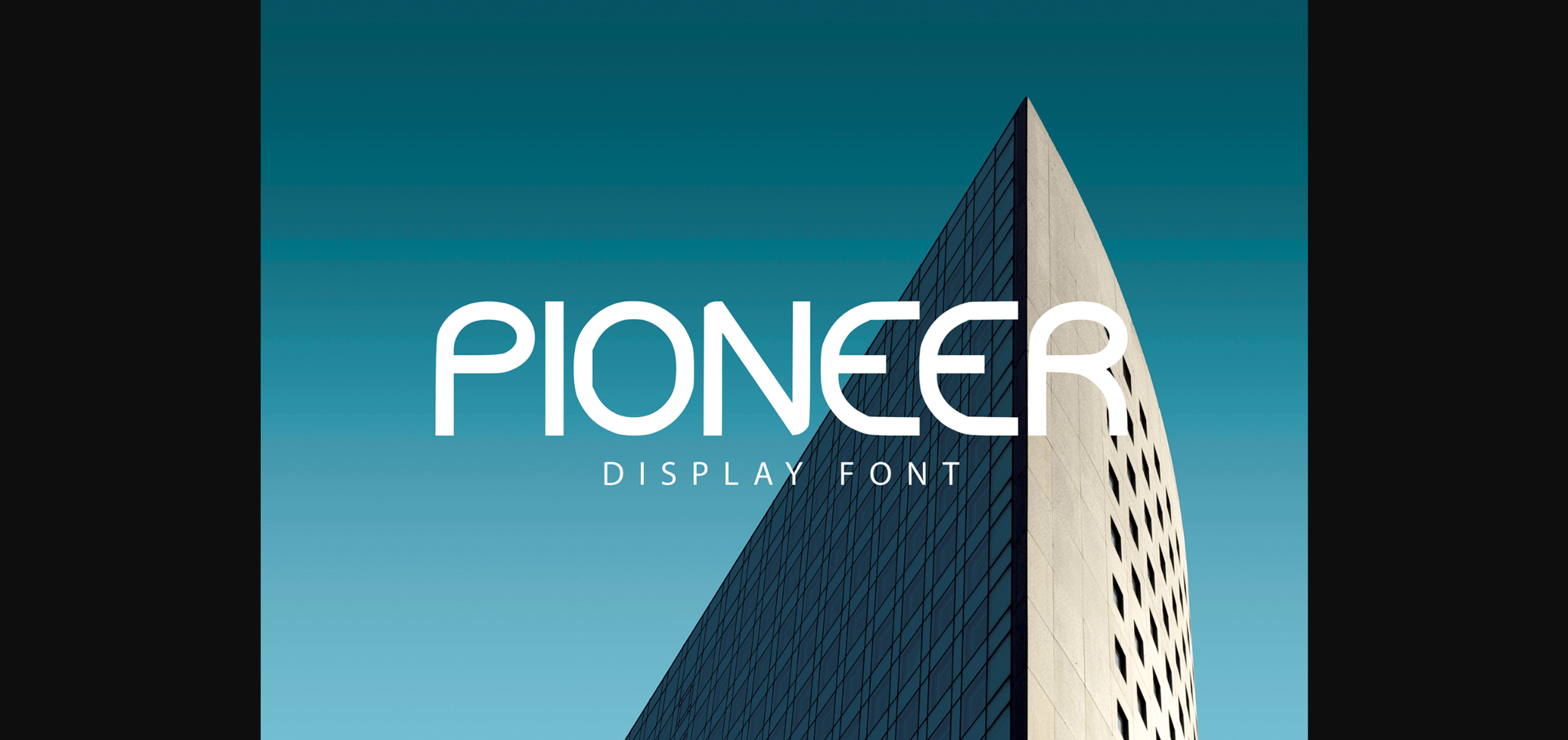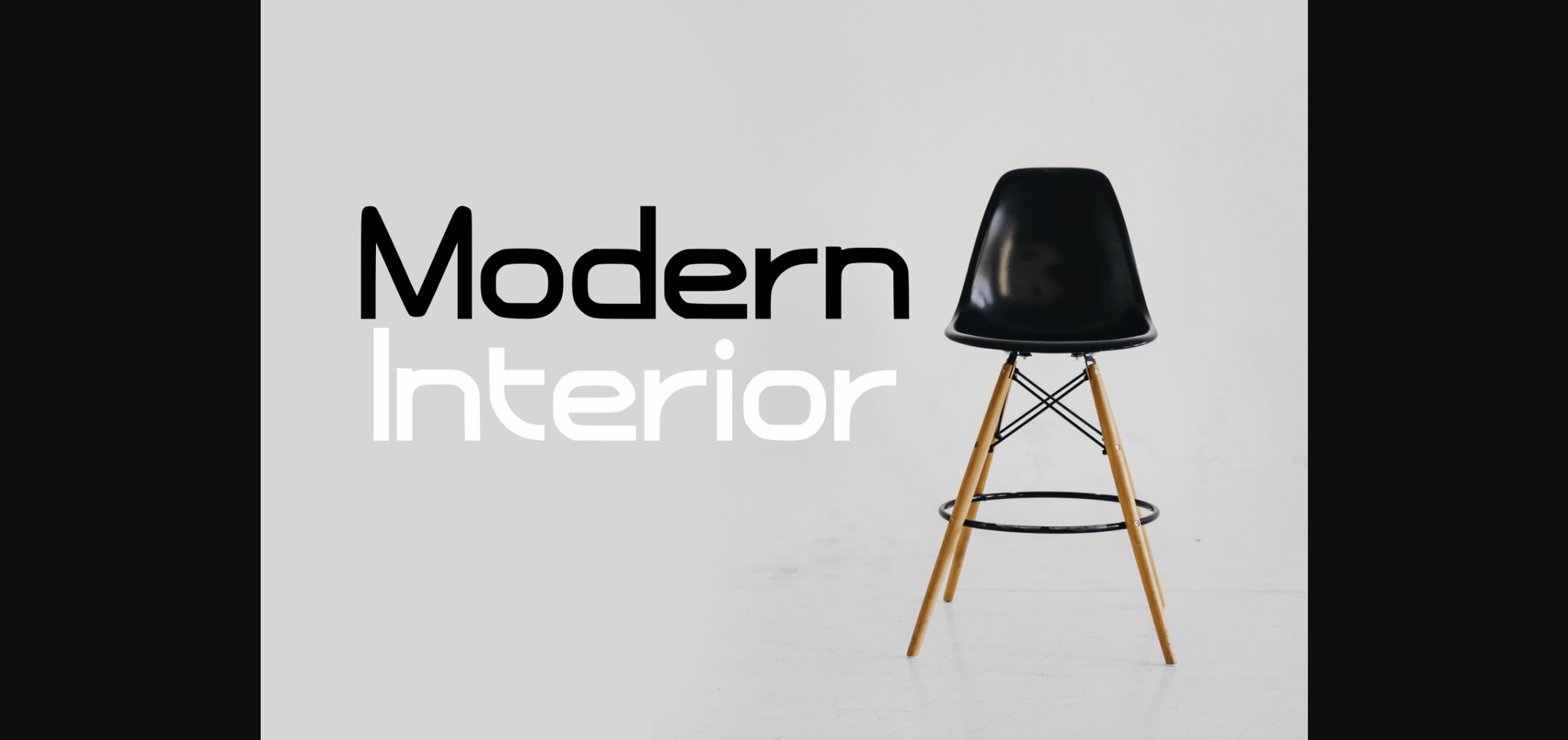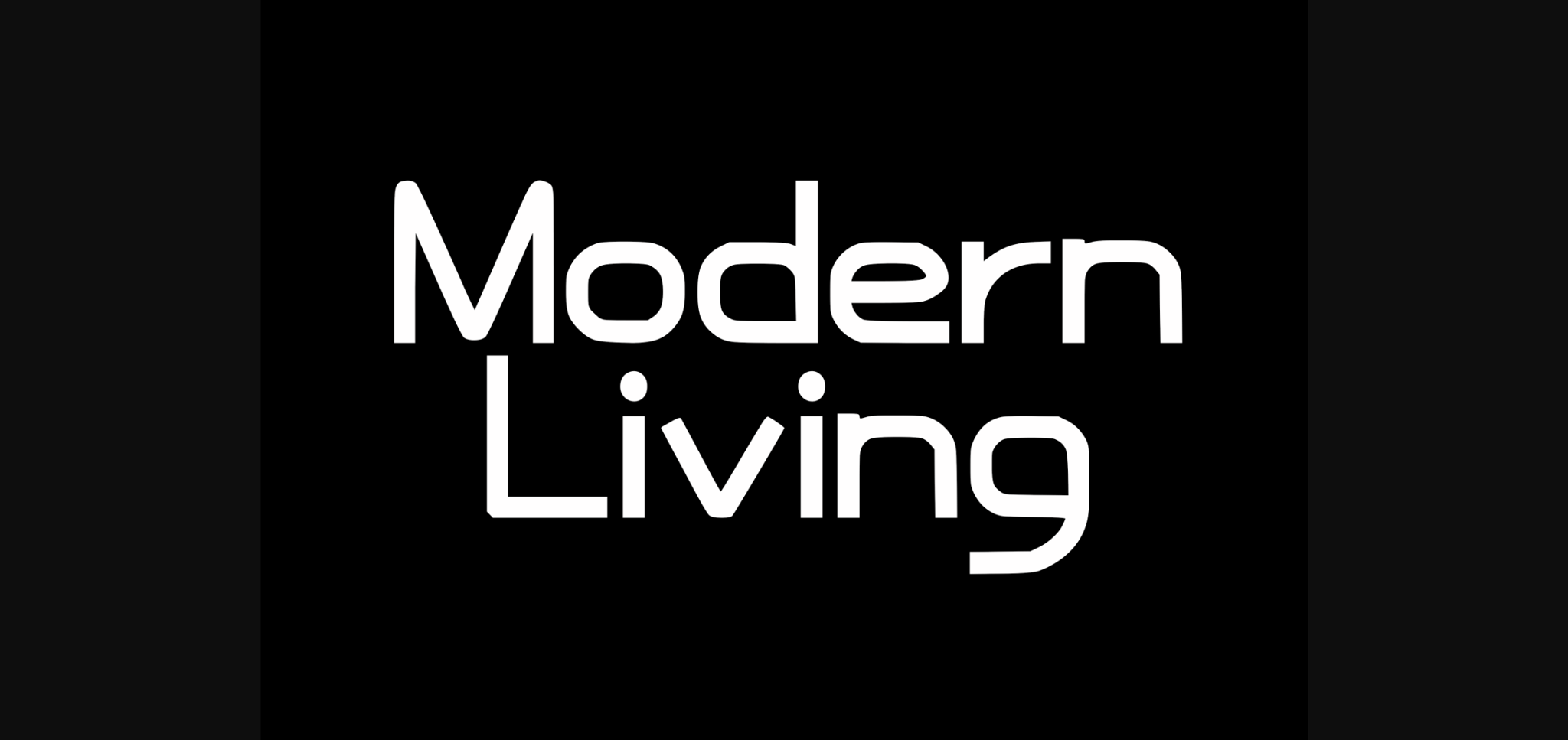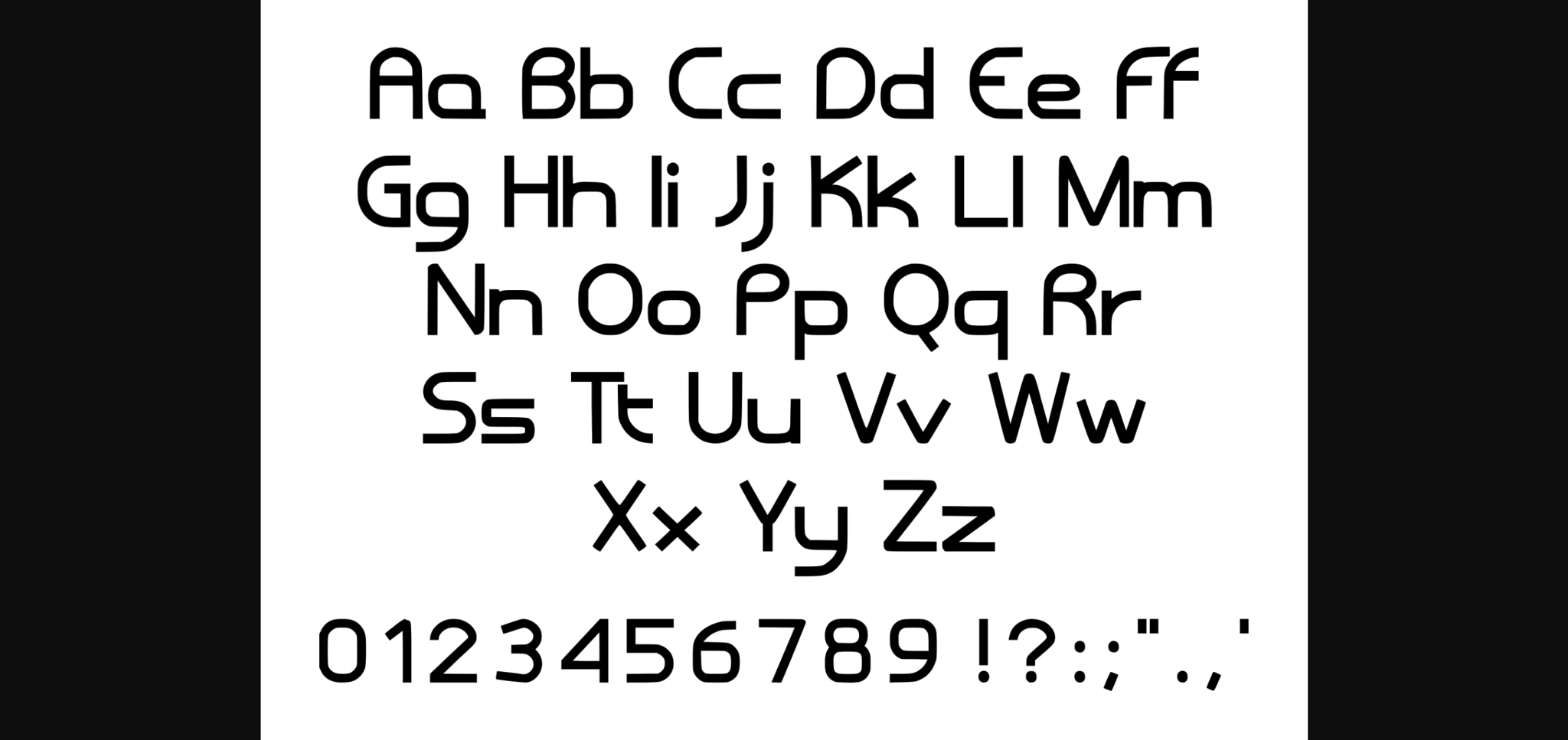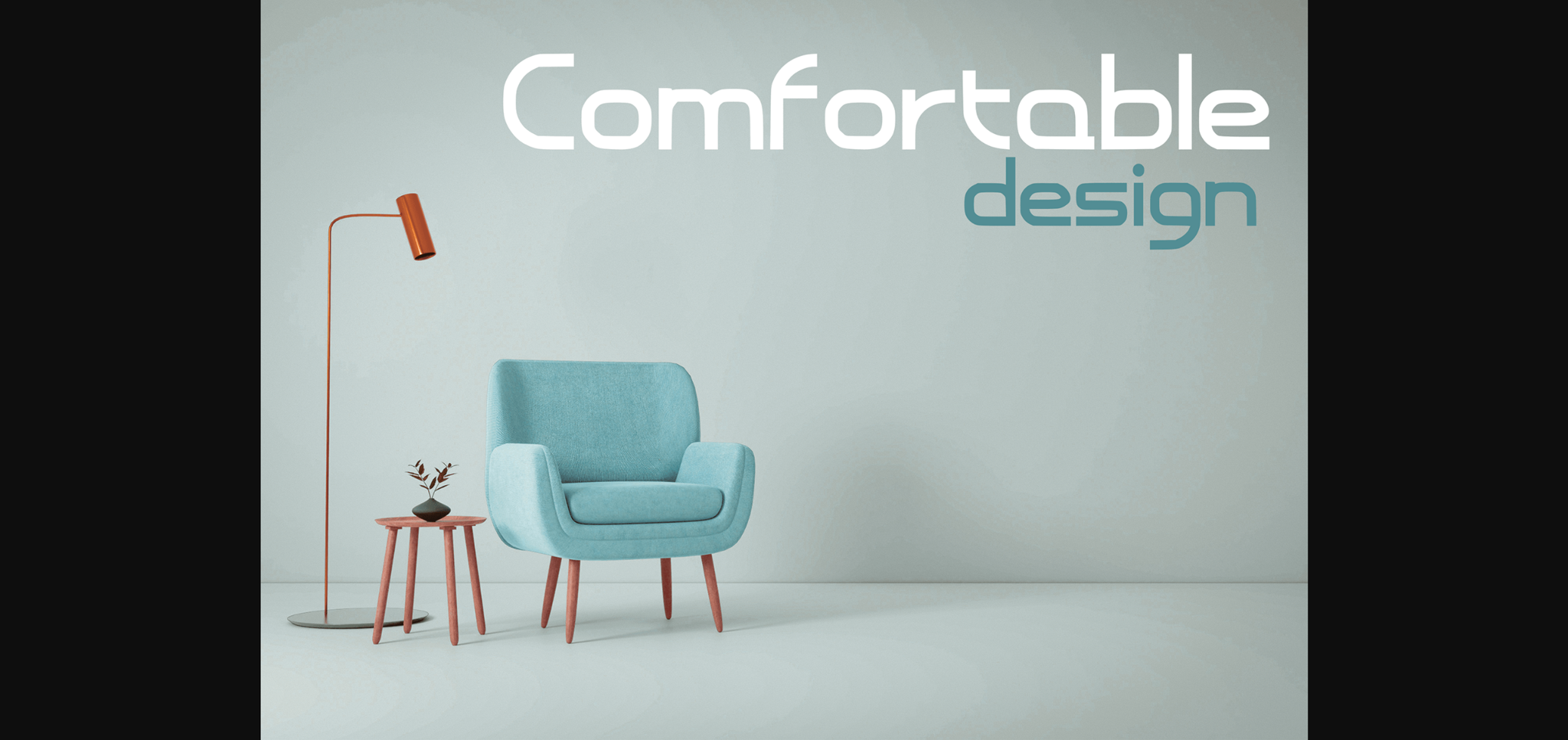
HomeSans Serif FontsPioneer Font Sans Serif Fonts Pioneer Font FacebookXPinterestWhatsApp 1 of 7 ... Pioneer Font Poster 2... Pioneer Font Poster 3... Pioneer Font Poster 4... Pioneer Font Poster 5... Pioneer Font Poster 6... Pioneer Font Poster 7... About Pioneer Font Pioneer is made in minimalist theme, modern and clean style. Pioneer is a sans serif inspired by modern life and can be used for branding, design projects, your business, posters, and other projects. DOWNLOAD NOW People also explored Hiroshima Script Font Outside Collection Font My Dear Mama Font Biscuits Font School Font Online School Font Kastella Font Limit Corner Font Dark Brush Font 347 0 TagsPioneerPioneer Font Previous articleBack to Notes FontNext articleRasegon Font LEAVE A REPLY Cancel reply Comment: Please enter your comment! Name:* Please enter your name here Email:* You have entered an incorrect email address! Please enter your email address here Website: Save my name, email, and website in this browser for the next time I comment. Personal Use Free Micahel Personal Use Free Read more about this font Beautiful Personal Use Free Read more about this font Bukhari Script Personal Use Free Read more about this font Gratisan Personal Use Free Read more about this font BLOG How to Cut Any Font on Cricut: Convert a Font to SVG (Free) Turn any font into a clean SVG so it cuts crisp on Cricut - a quick 3-step workflow using a free font-to-SVG tool. To increase your work productivity, choose the most readable fonts. Free Fonts Risk: Why Free Fonts Can Be Dangerous for Designers Transform Your Website: Elevate Your Typography with 7 Best Web Font Generators